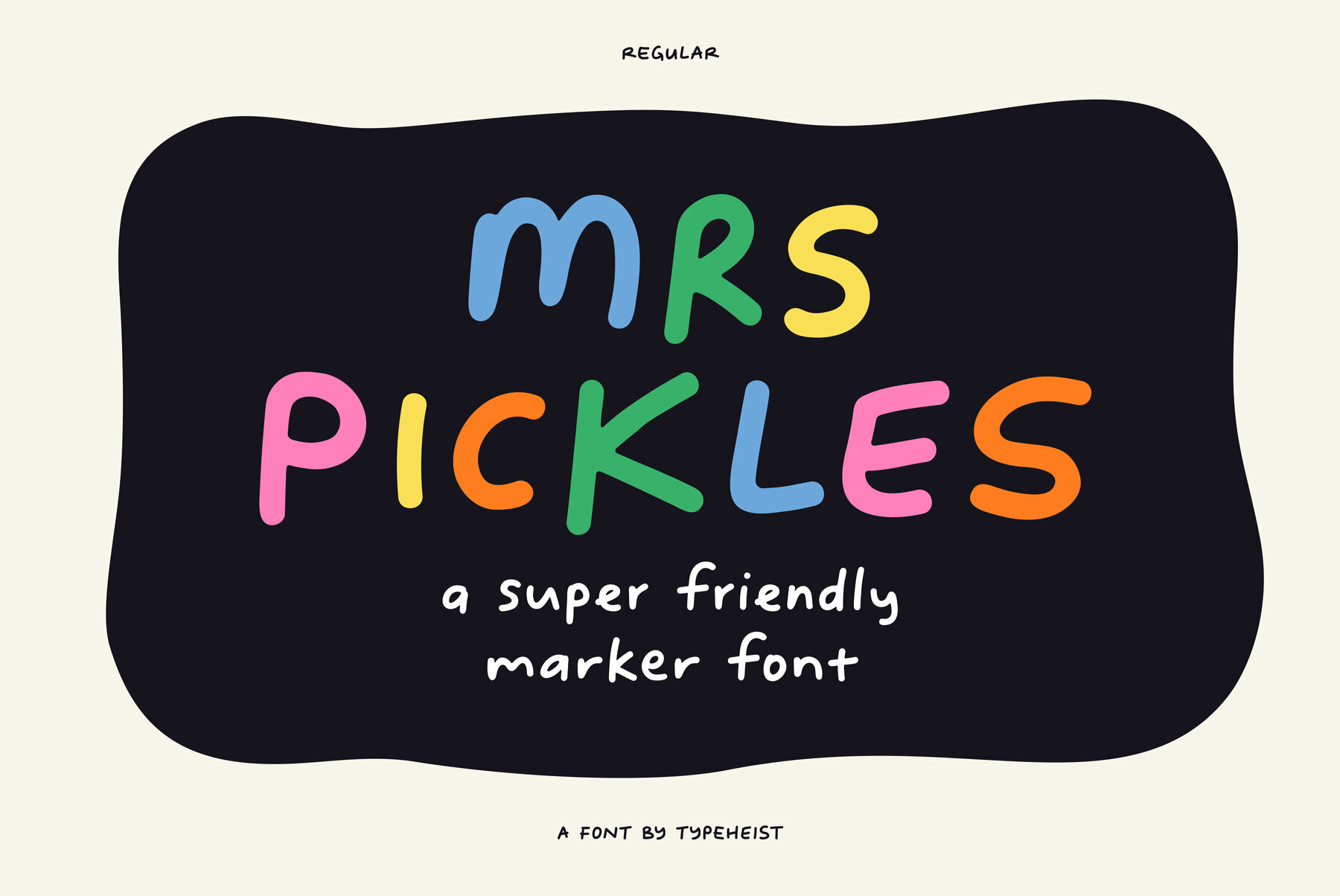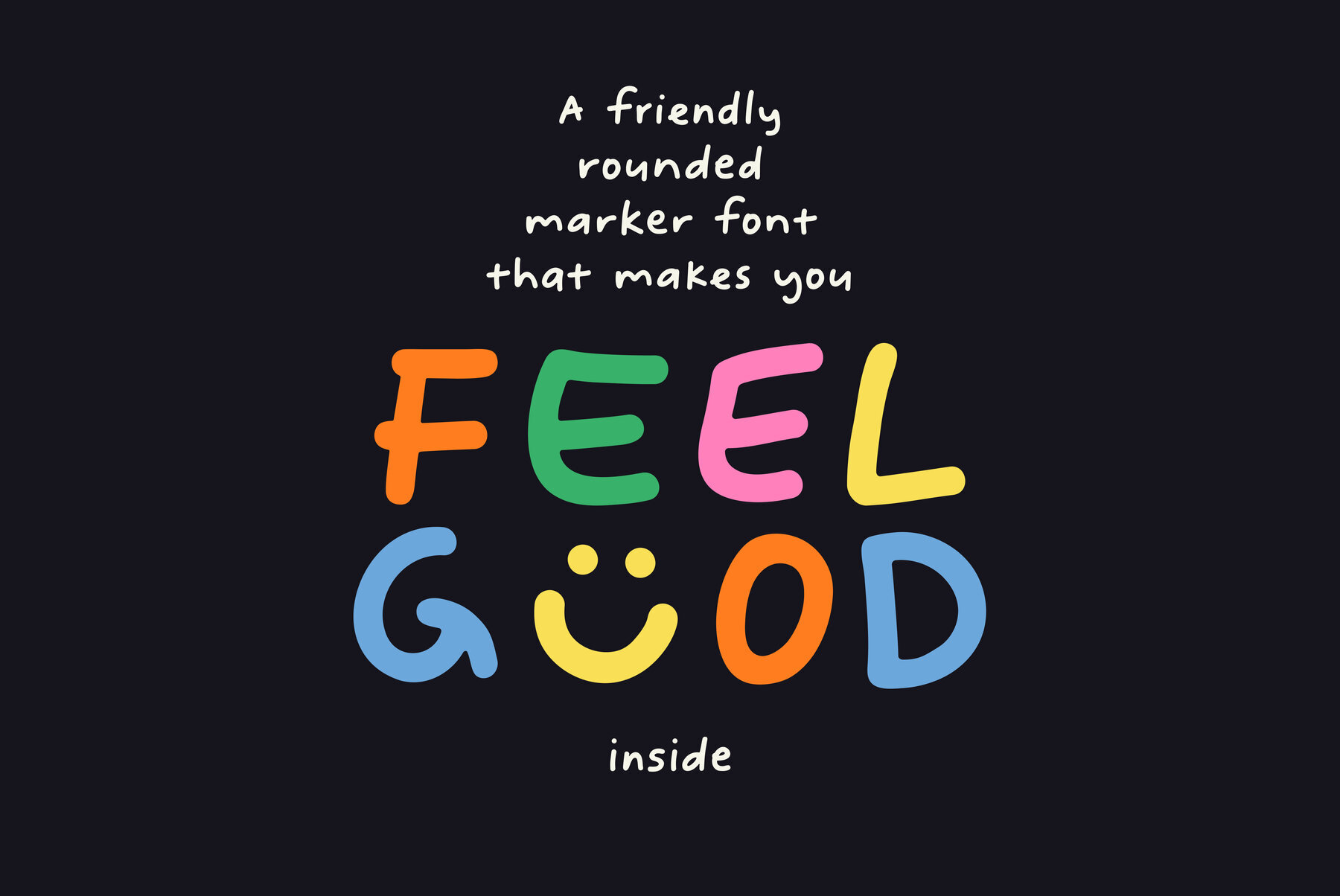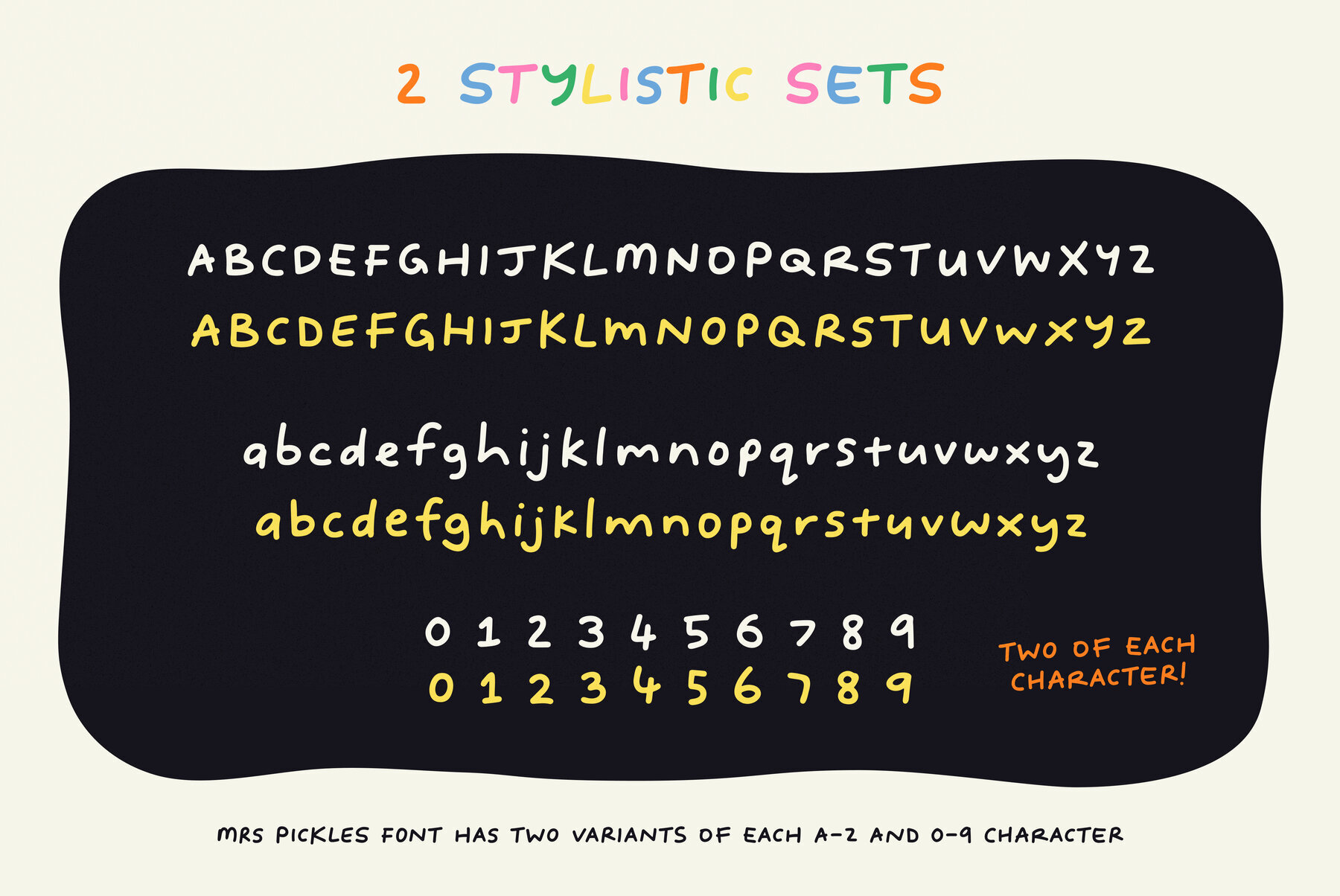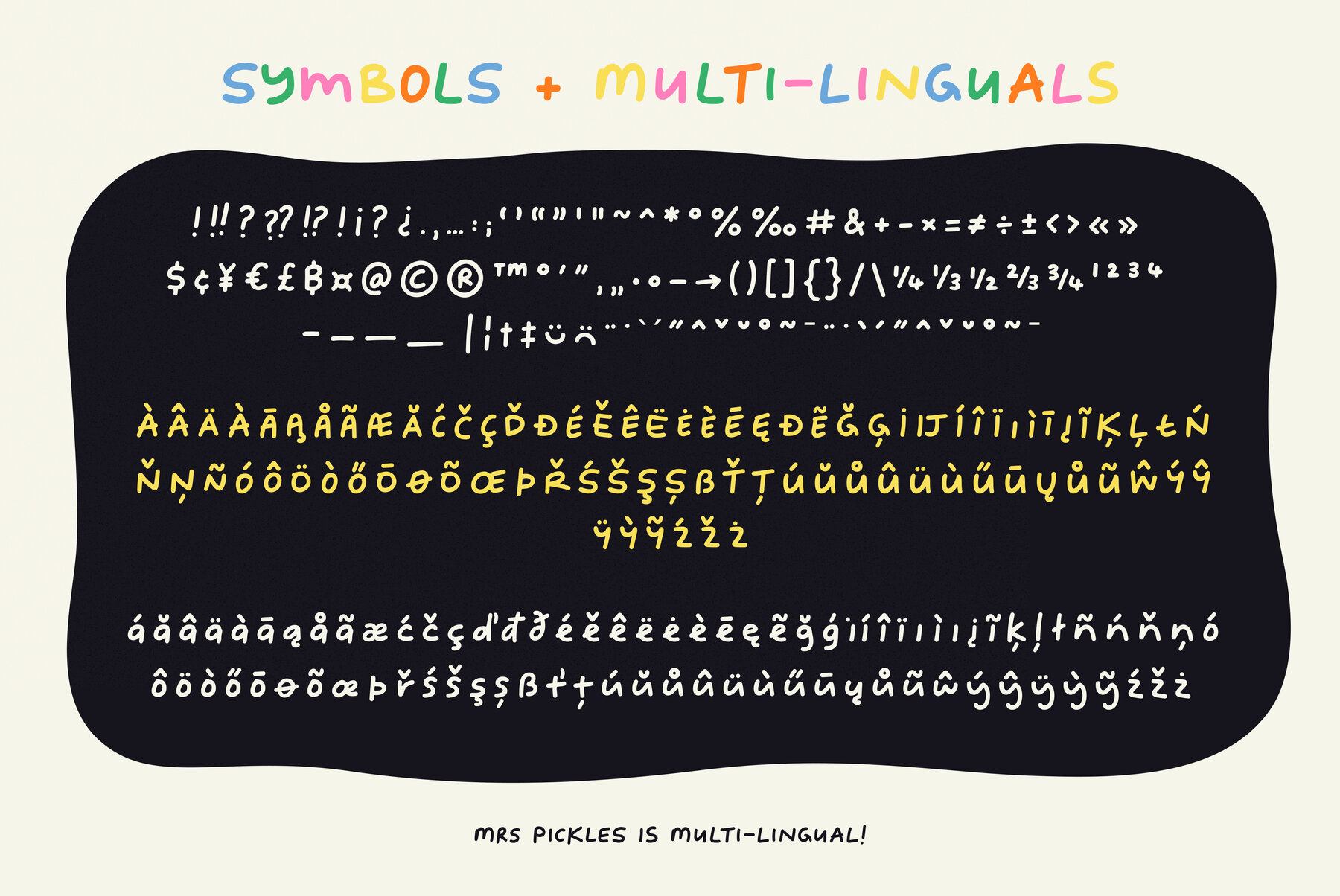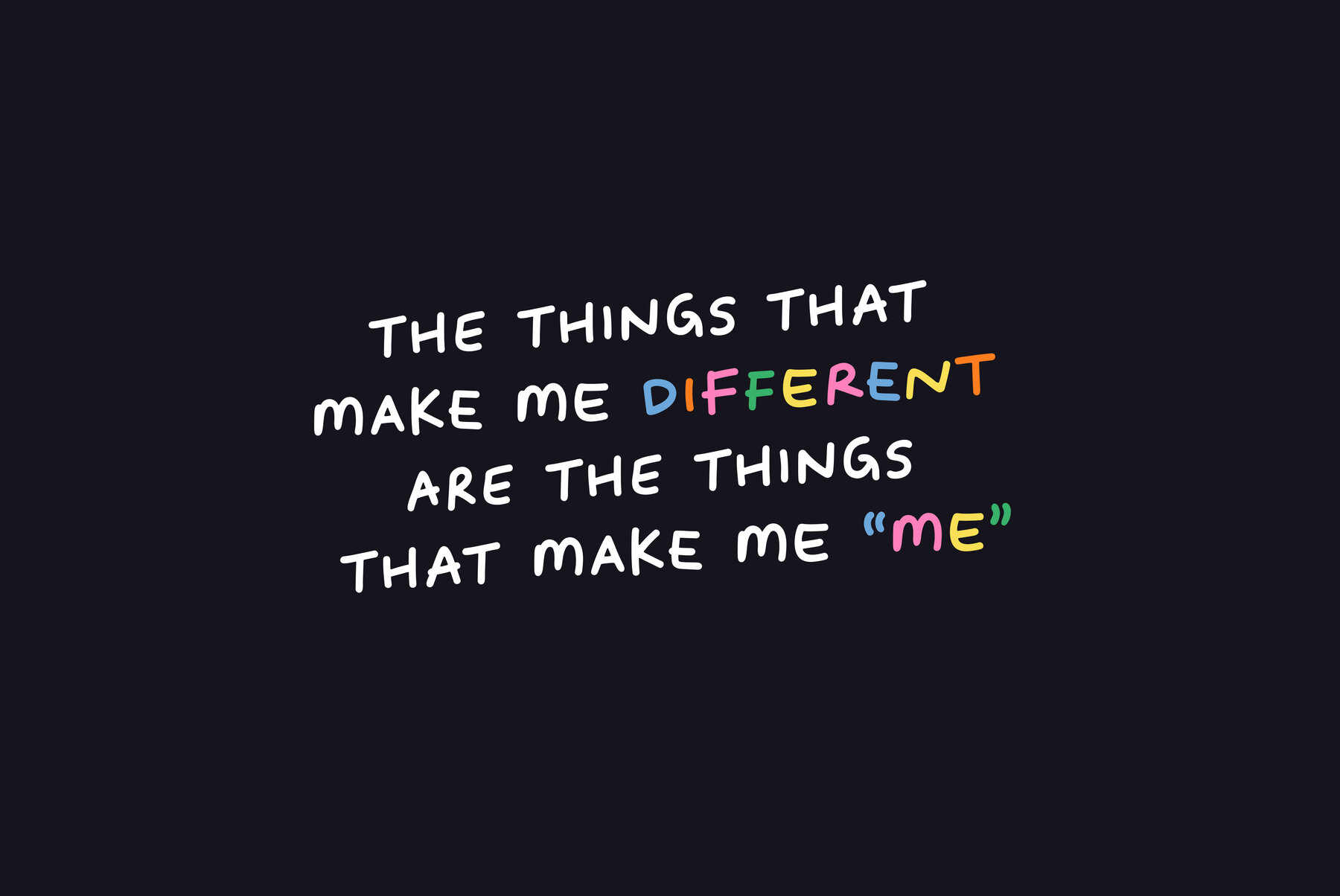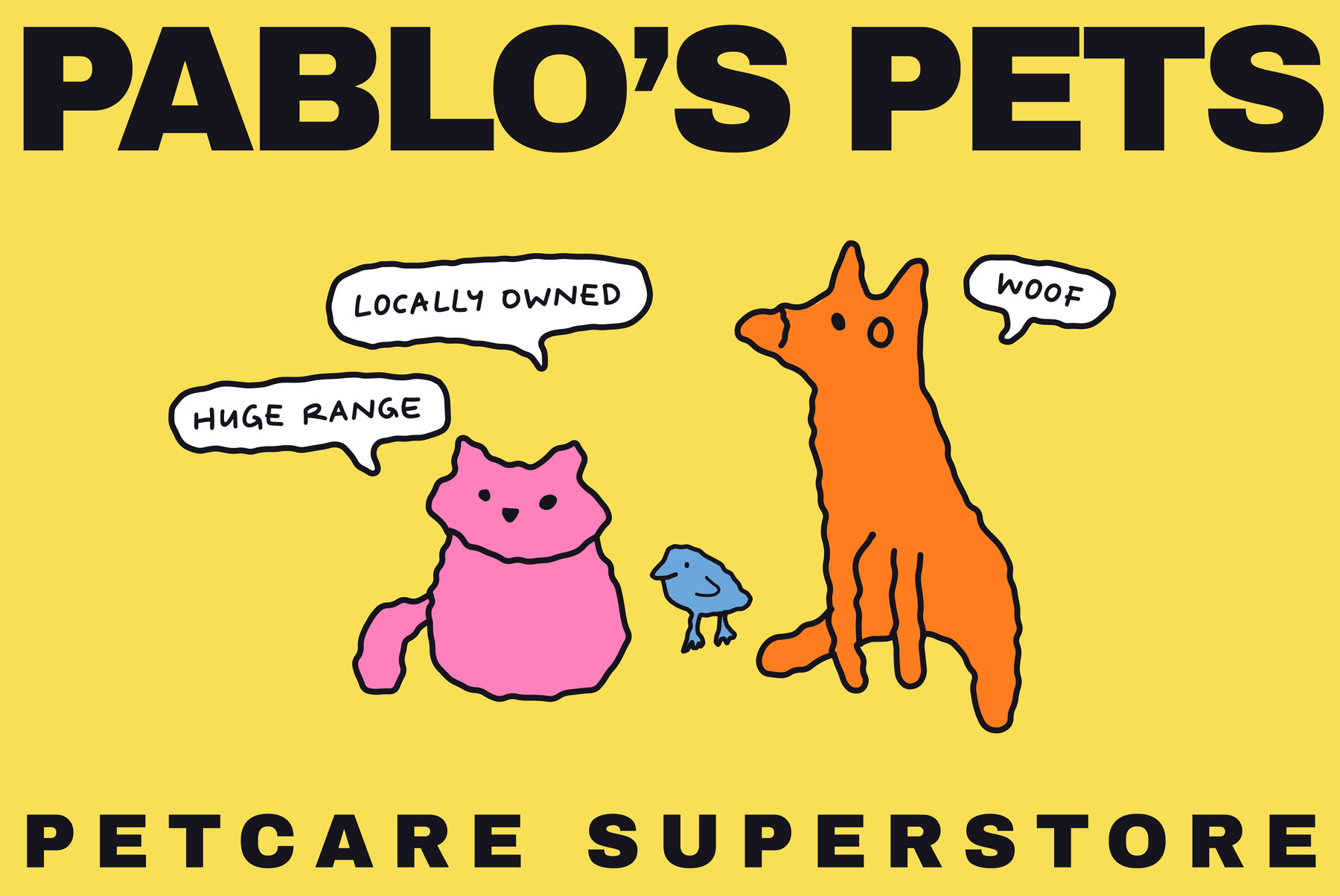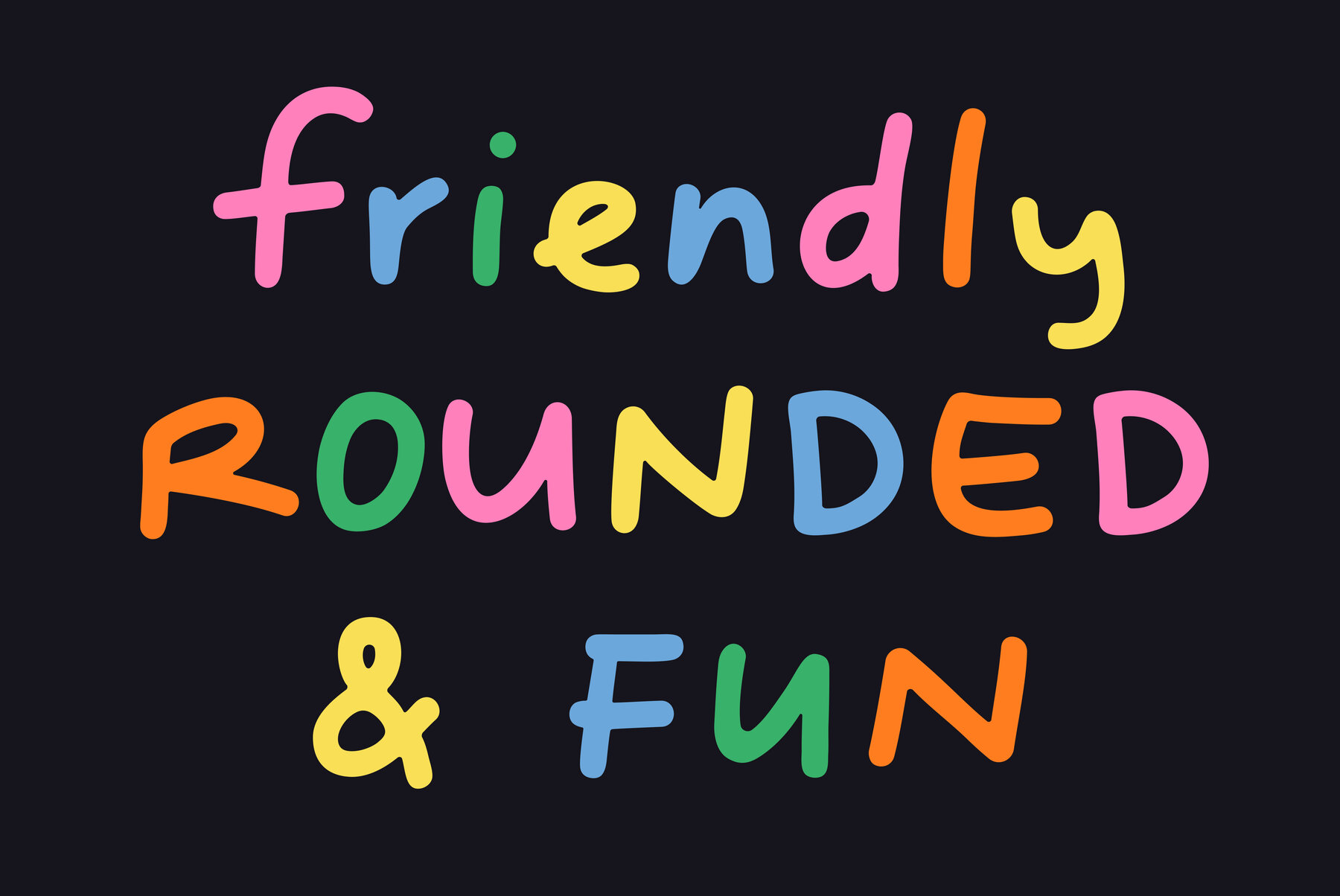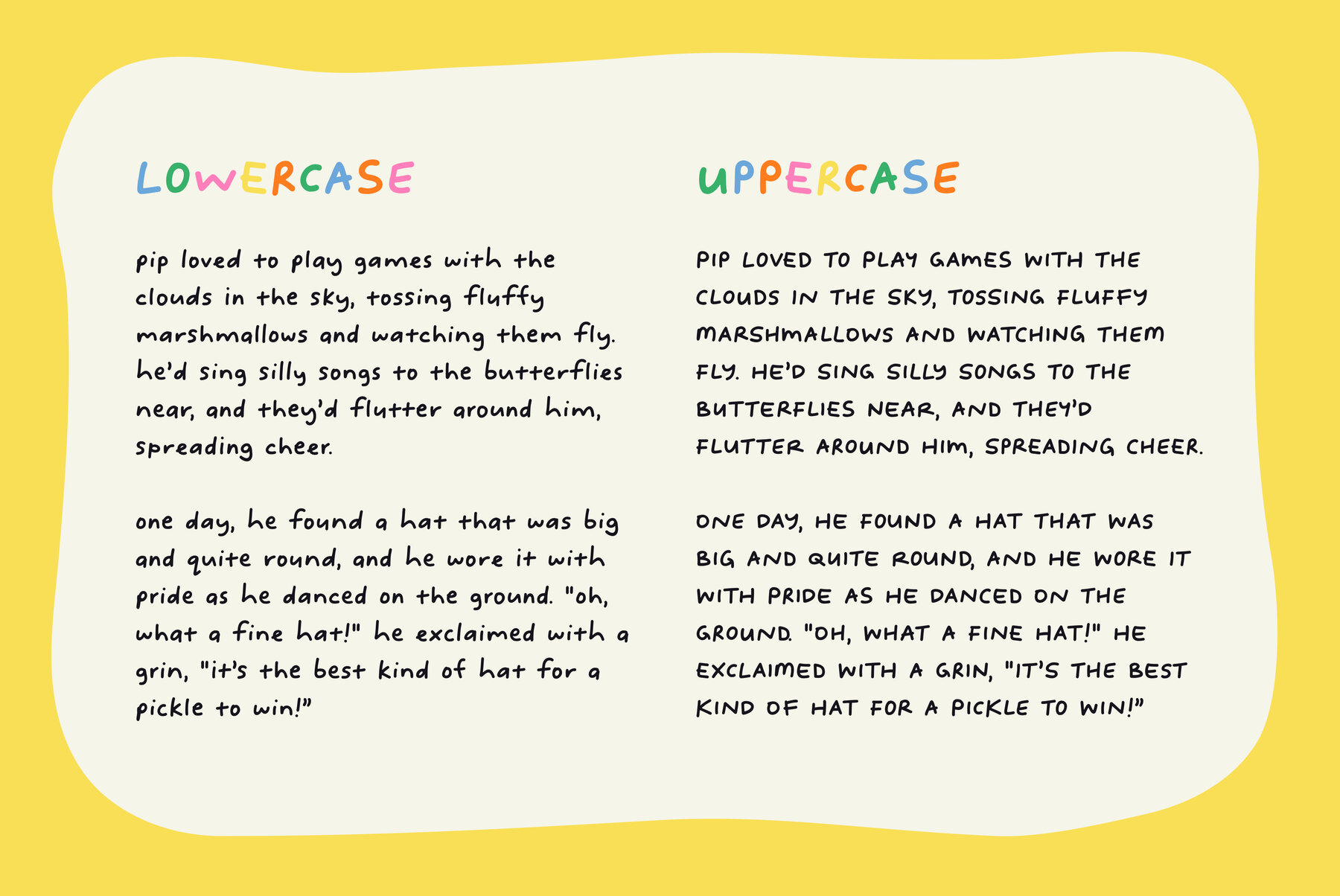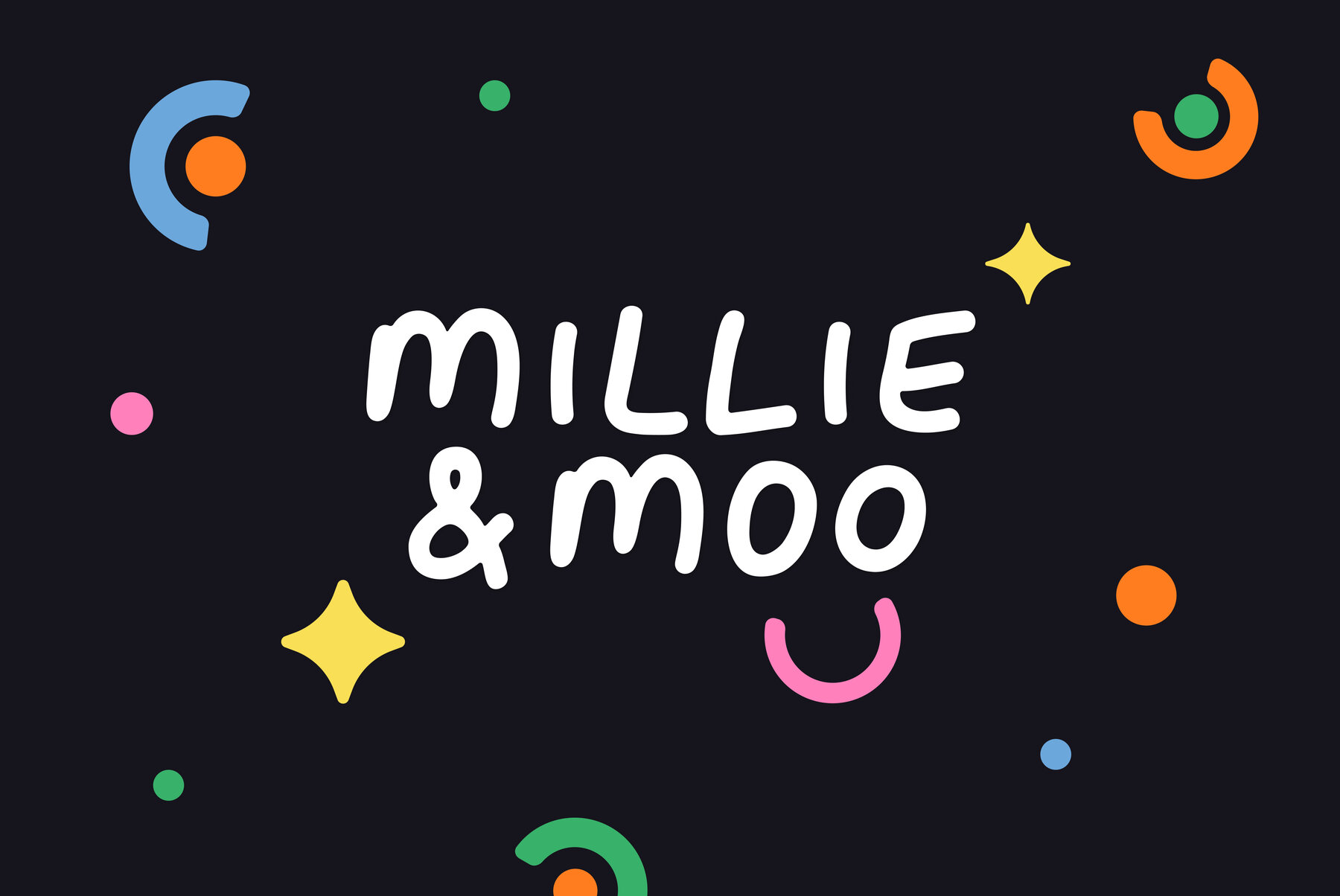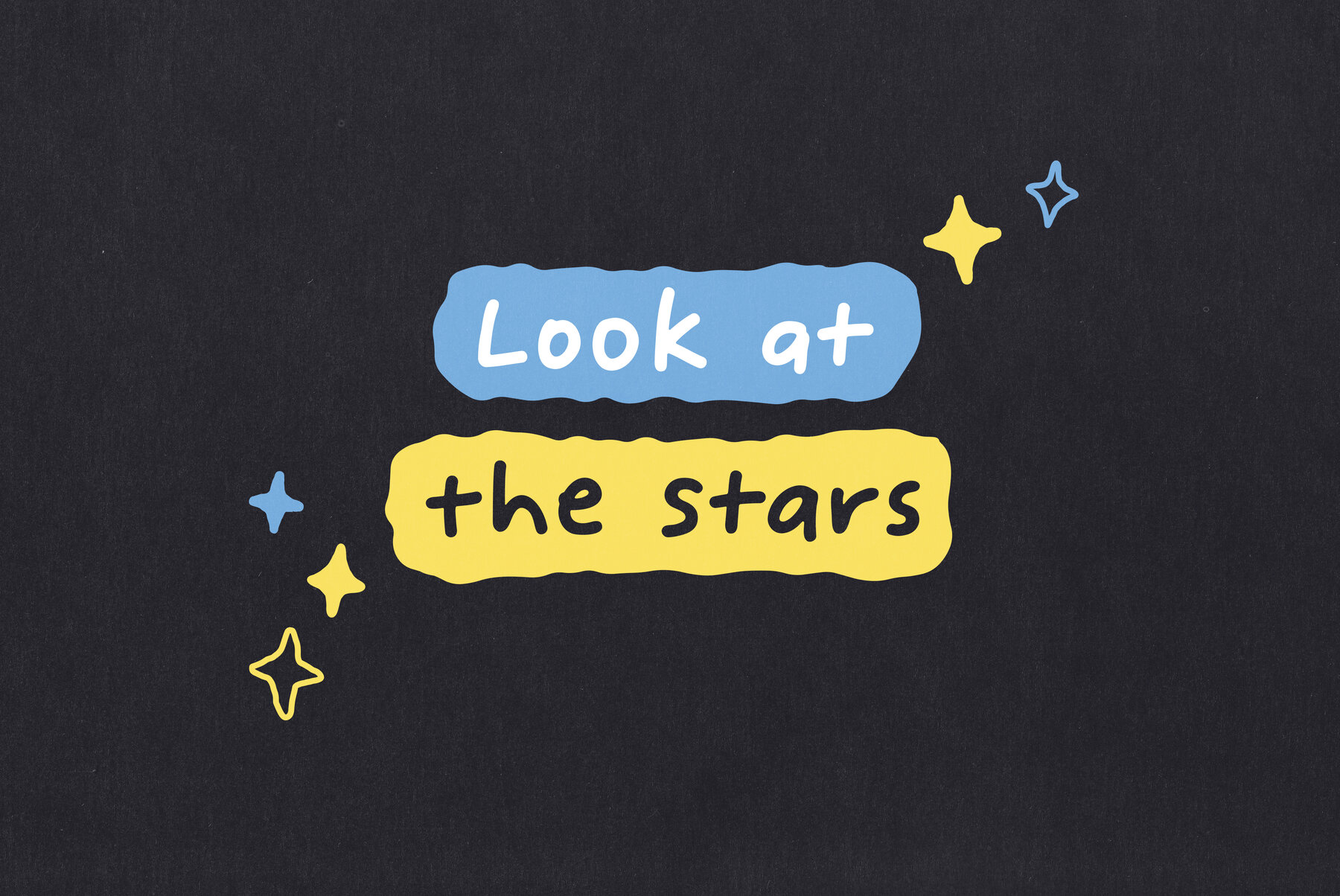
Typeheist is an independent font foundry specializing in hand-lettered typefaces that embrace the imperfections of real handwriting. Each font is carefully hand-rendered to capture a natural, unscripted feel, making them perfect for projects that demand individuality and authenticity. By leveraging OpenType fe...